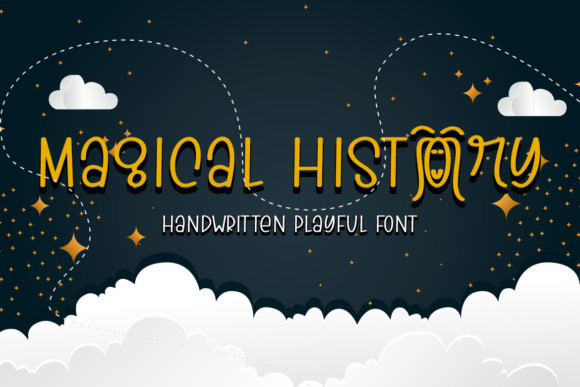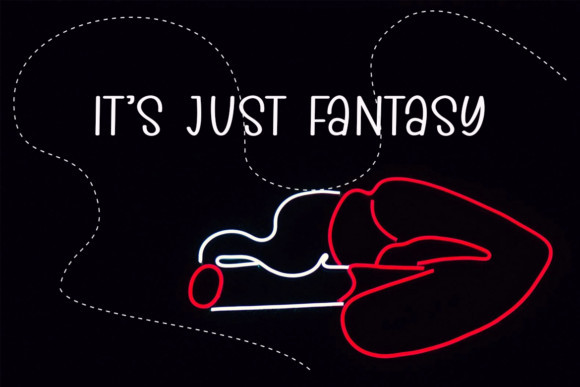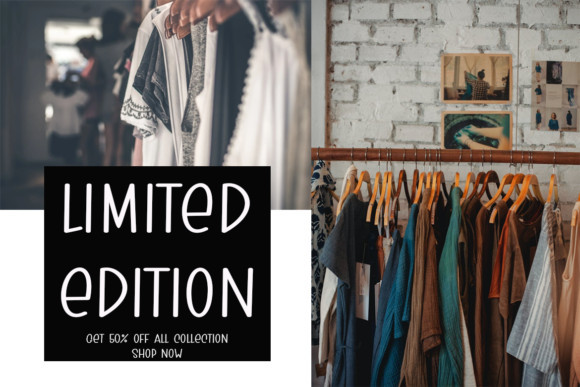
Magical History Font
Magical History is a cute and playful handwritten font. Whimsical and a bit quirky, this font will brighten up each of your designs. Add it confidently to your projects, and you will love the results.